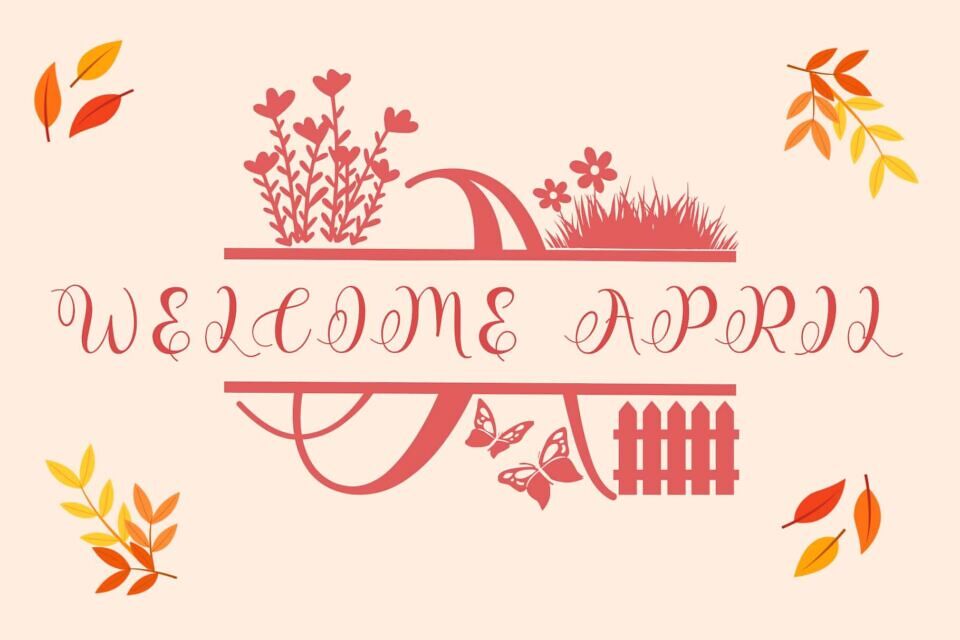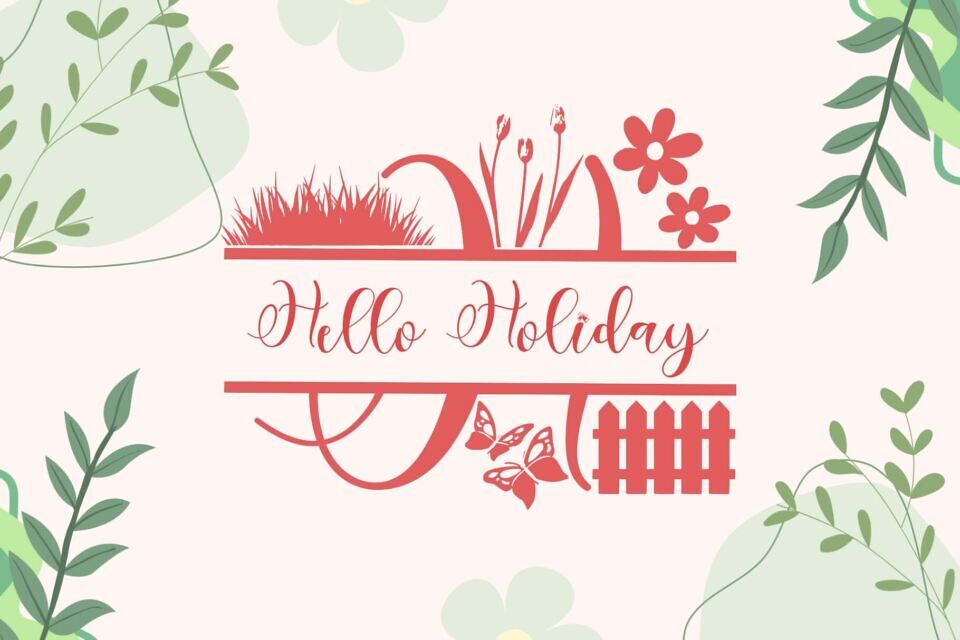
Floral Cute Monogram is a charming and whimsical script font designed especially for monogram projects. With delicate swashes and floral embellishments, this font brings a garden-inspired touch to everything from stationery and wedding invites to spring-themed crafts and custom gifts.
Its elegant curls and nature-themed flourishes make it an enchanting choice for any design that needs a soft, decorative flair.